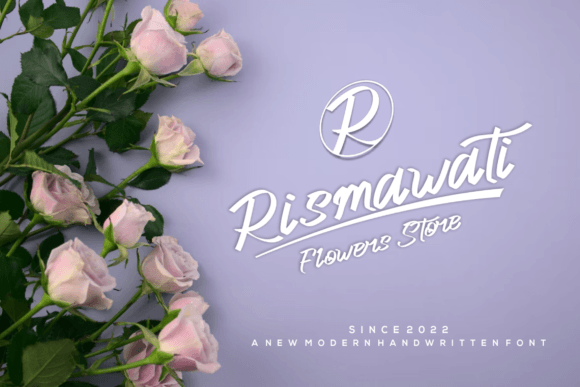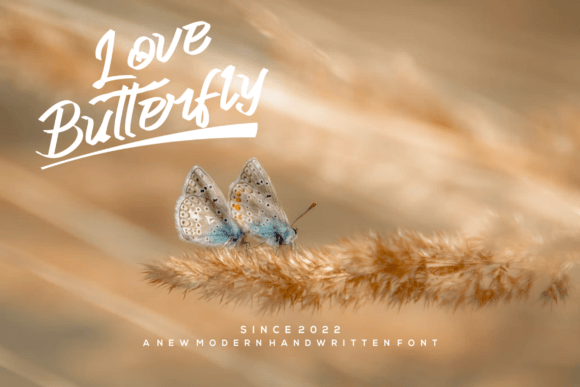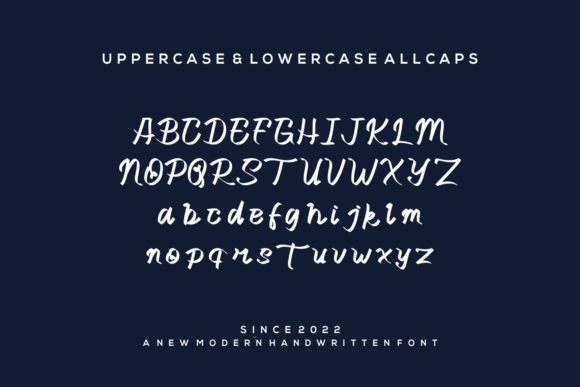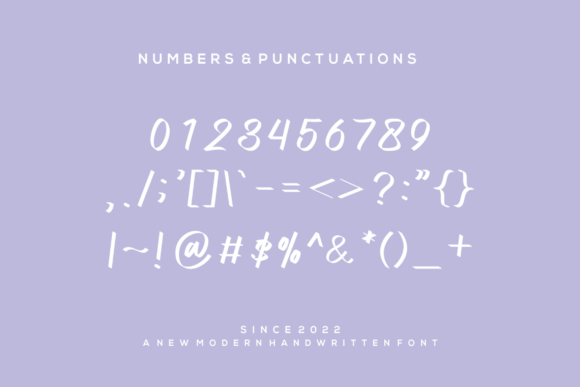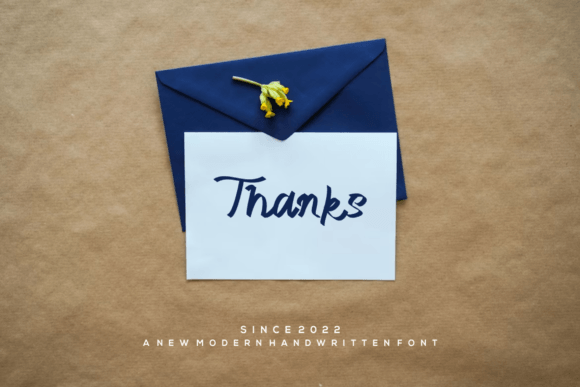
Introduction to Ragasti Font
As a designer, there’s nothing quite like the thrill of bringing a creative project to life. The moment when all the elements come together, and you see your vision take shape, is pure magic. But let’s be real, finding the right design resource can make all the difference. That’s where the Ragasti Font comes in – a cool and modern handwritten script font that’s about to become your new go-to.
Whether you’re working on a branding project, creating a social media graphic, or designing a wedding invitation, the Ragasti Font has the potential to elevate your design to the next level. With its high-quality, handwritten feel, this font is a versatile and valuable addition to any designer’s toolkit.
Ragasti Font
- High-quality, professional font ideal for creative projects
- Unique, stylish design that adds a touch of elegance to any creative project
Honest Review: Ragasti Font
As a designer, I’m always on the lookout for high-quality design resources to elevate my creative projects. The Ragasti Font is one such find that has caught my attention.
- Unique and stylish design that adds a touch of sophistication to any project
- High-quality font with crisp and clear lines, perfect for both digital and print media
However, I do have a few reservations about the Ragasti Font. The main limitation I’ve noticed is that it’s a bit too ornate for some projects, which may not be ideal for minimalist designs.
- May not be suitable for minimalist designs due to its ornate nature
- Not as versatile as some other fonts, which may limit its use in certain projects
Overall, the Ragasti Font is a great addition to any designer’s toolkit, offering a unique and stylish design that’s perfect for creative projects. While it may have some limitations, it’s definitely worth considering for your next design endeavor.
Ragasti Font
Tips for Getting the Most Out of Ragasti Font
For optimal results, use the Ragasti Font in conjunction with other design elements, such as graphics and images. Experiment with different font sizes and styles to achieve a unique look.
The Ragasti Font is suitable for a variety of creative projects, including logos, social media graphics, and marketing materials. Its unique design makes it an excellent choice for adding a touch of sophistication to your designs.